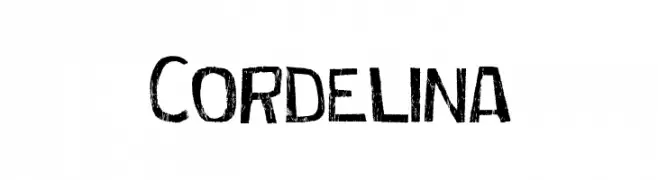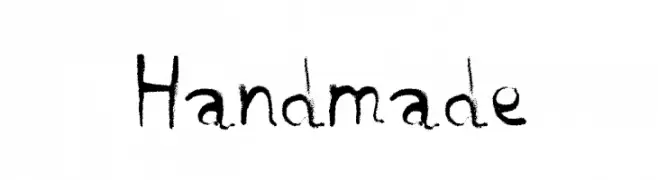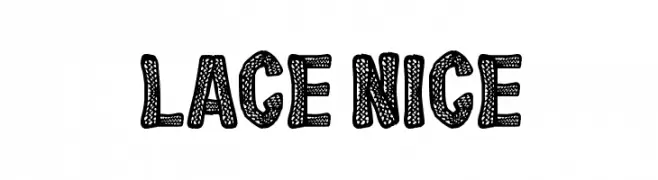
A bold, distressed font with a vintage typewriter style.
A sketch-style serif font with textured, hand-drawn strokes.
A bold, brush-style font with dynamic, expressive strokes.
A bold, handcrafted font with a playful, cut-out style.
A bold, rounded font with a handcrafted, organic feel.
A bold, distressed font with a vintage, handcrafted look.
A bold, textured serif font with a handcrafted appearance.
A handcrafted, artistic font with a vintage flair and modern twist.
A bold, hand-carved font with a rustic, woodcut appearance.
A bold, distressed font with a vintage, rugged appearance.
A distressed, textured font with a vintage, hand-drawn style.
A bold, playful script font with a handcrafted feel.
A bold, distressed sans-serif font with a vintage, rugged texture.
A textured, vintage-style font with tall, narrow characters and a distressed look.
A bold, decorative font with a woodcut texture and vintage appeal.
A bold, textured decorative font with a vintage, handcrafted feel.
A bold, hand-drawn font with a rustic and organic feel.
A bold, brush-style font with dynamic, handcrafted strokes.
A rustic, textured font with a handcrafted, vintage feel.
A bold, distressed font with a textured, vintage printmaking style.
A bold, textured font with a vintage, woodcut appearance.
A bold, vintage typewriter-style font with a distressed, handcrafted look.
A rugged, hand-drawn font with an ancient, carved appearance.
A bold, dynamic brush-style font with an expressive, handcrafted look.
A bold, brush-style font with an energetic and handcrafted appearance.
A bold, textured font with a hand-painted, organic look.
A bold, hand-drawn font with a dynamic and energetic style.
A bold, brush-style font with a handcrafted, dynamic appearance.
A bold, artistic script font with a handcrafted, brush-like style.
A bold, rugged, and handcrafted font with a playful, energetic vibe.
A bold, brush-style font with an energetic and handcrafted appearance.
A bold, distressed font with a hand-painted, gritty appearance.
A bold, playful font with a hand-drawn, artistic style.